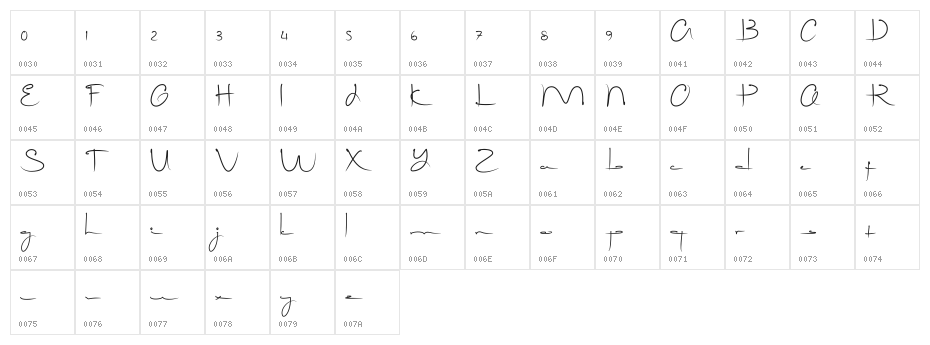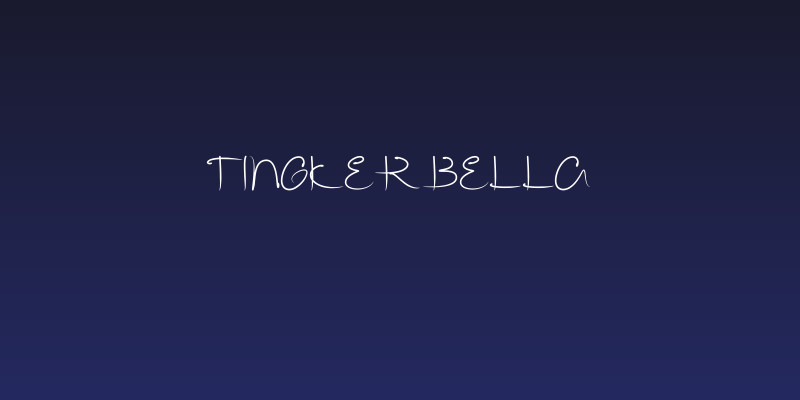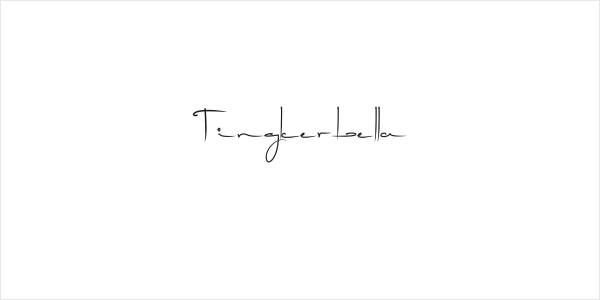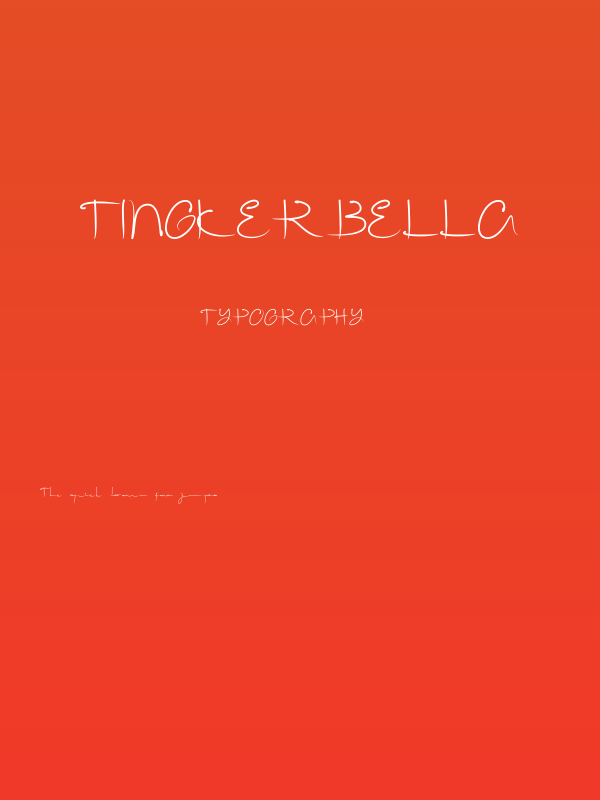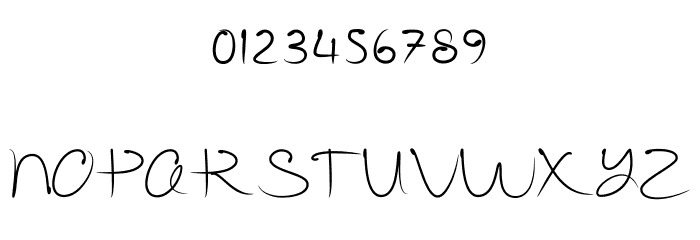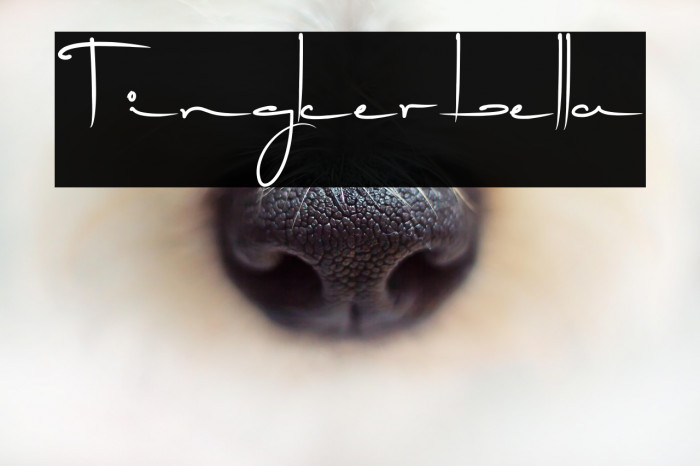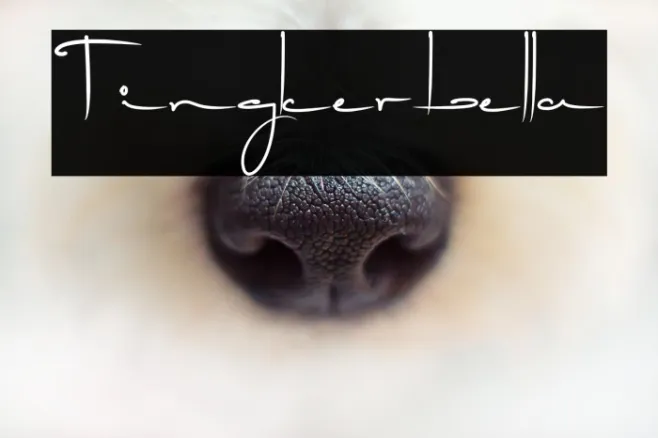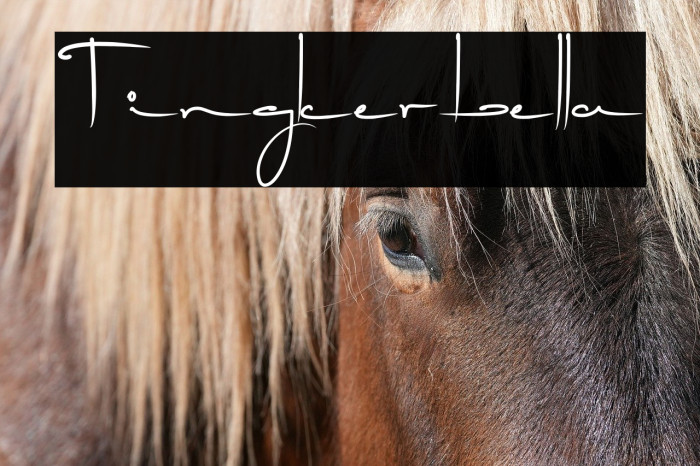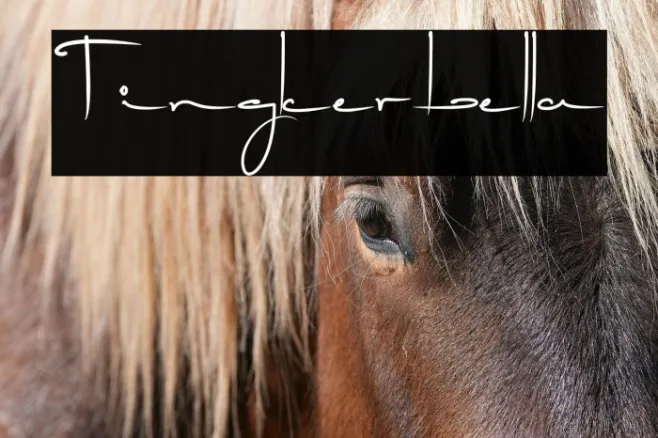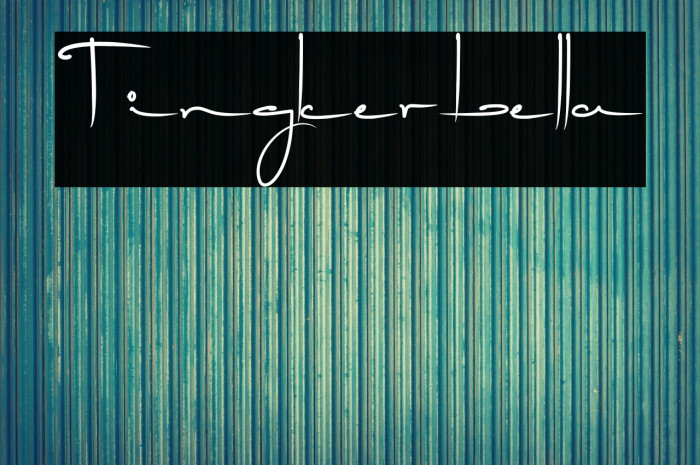
Tingkerbella Font
Tingkerbella Description
This font features a whimsical, handwritten style with elegant, flowing lines and a playful character. The uppercase letters are tall and slender, with a slight slant that adds a dynamic feel. The lowercase letters maintain a consistent height, with loops and curves that enhance its handwritten aesthetic. Numbers are clear and maintain the same playful style, ensuring readability. The special characters are creatively integrated, matching the overall playful and artistic vibe. This font is perfect for projects that require a touch of creativity and elegance.
| Proposed Projects | Ideal for greeting cards, invitations, branding, and creative projects that require a personal touch. |